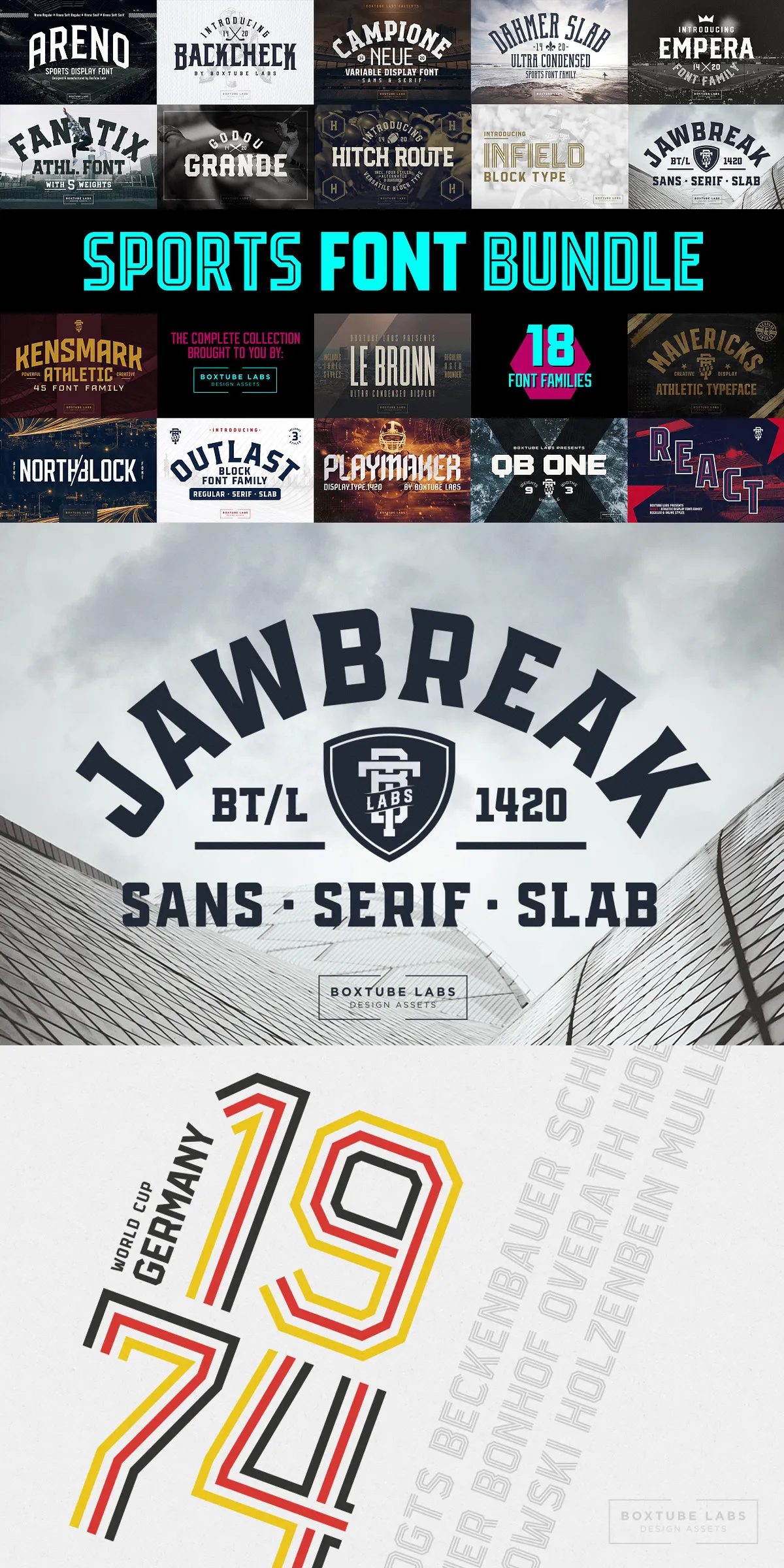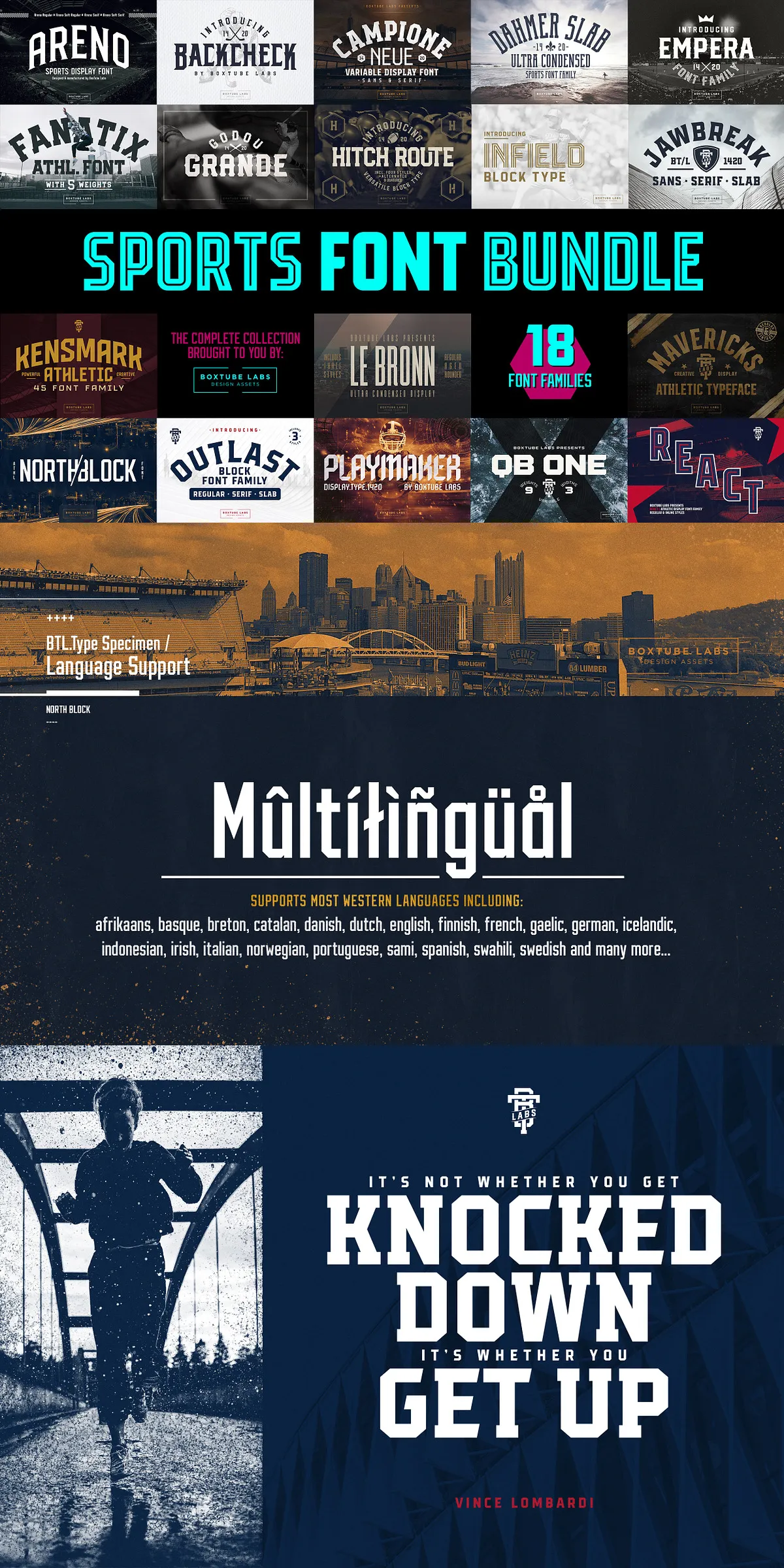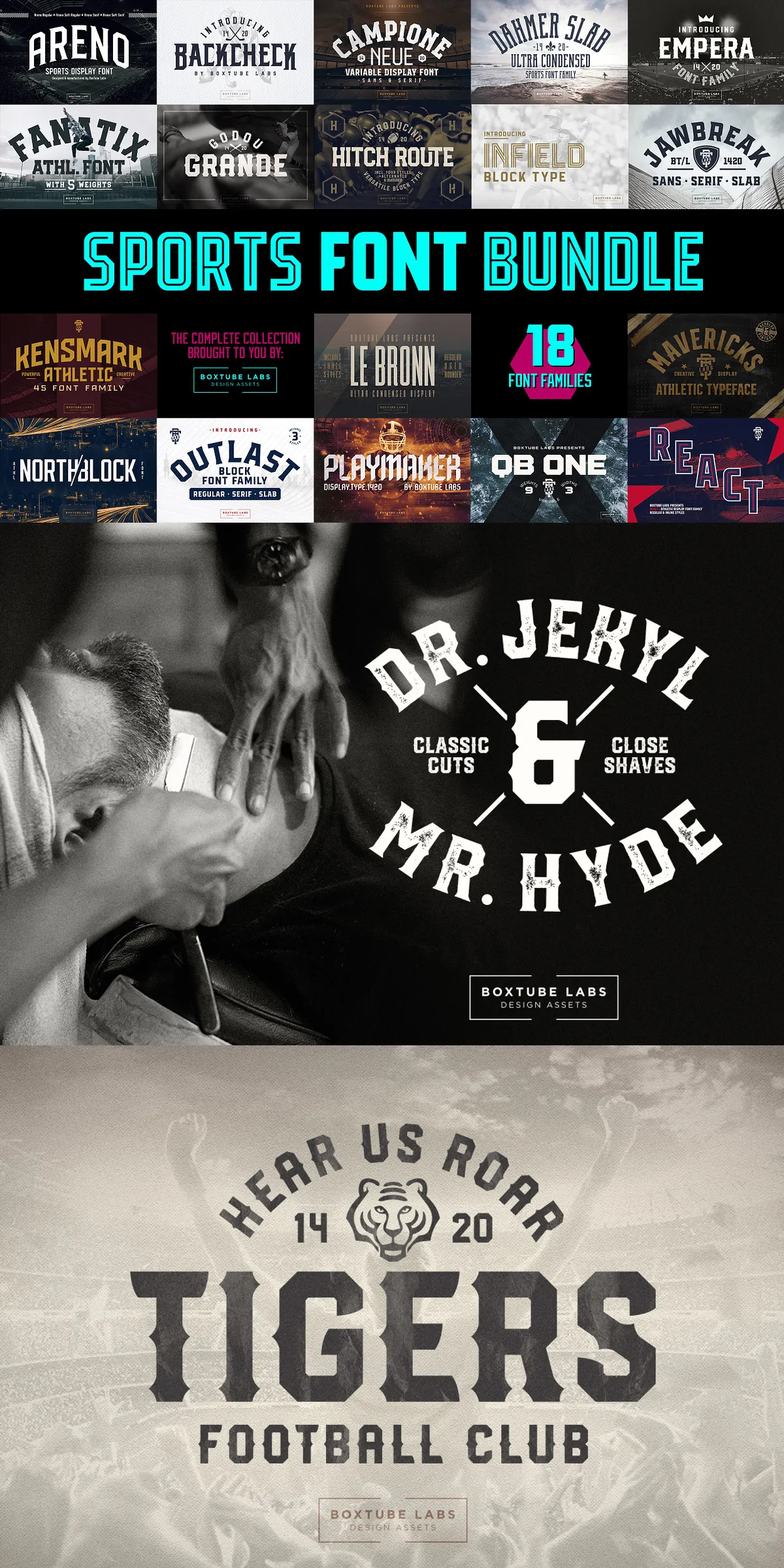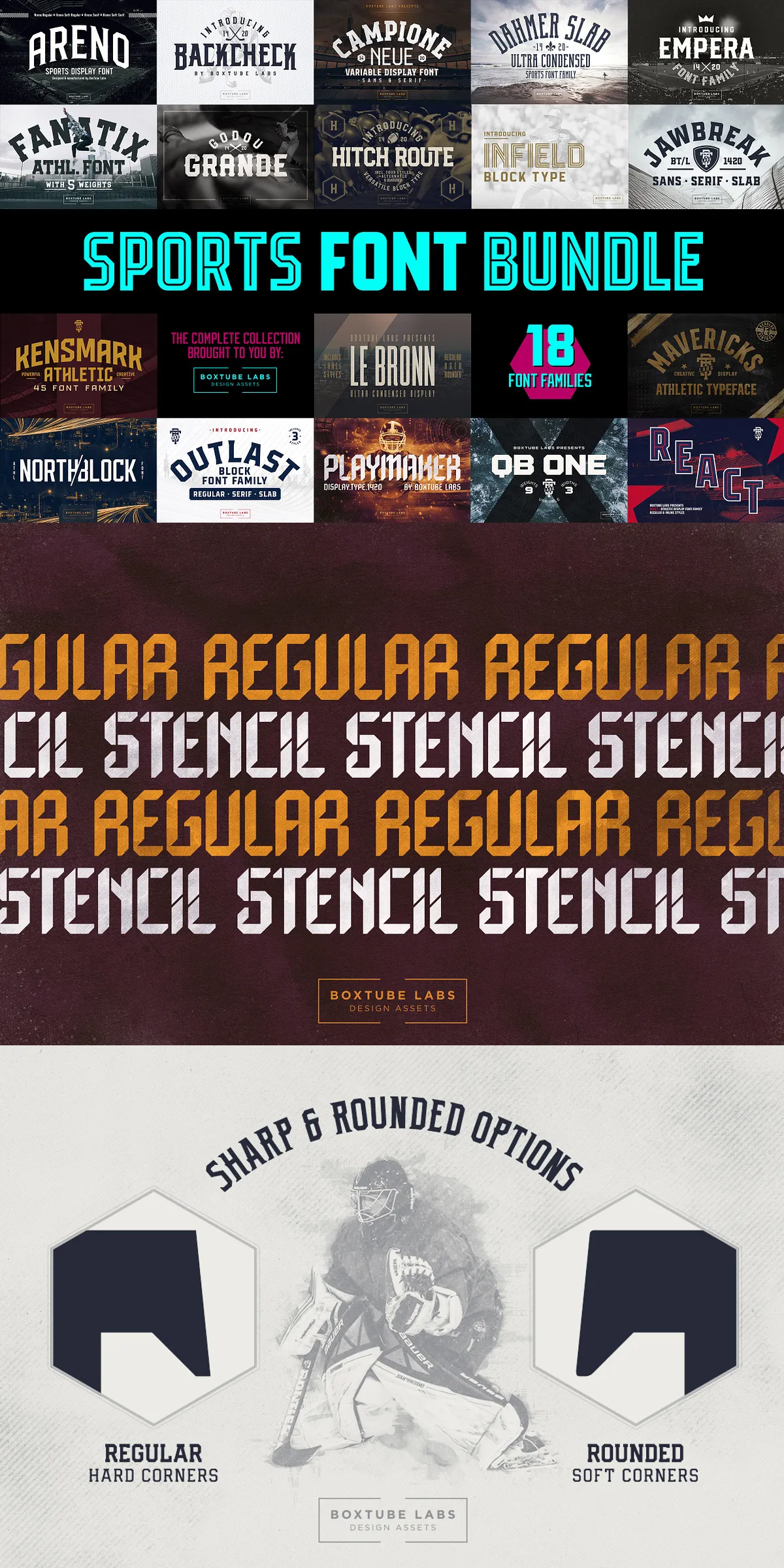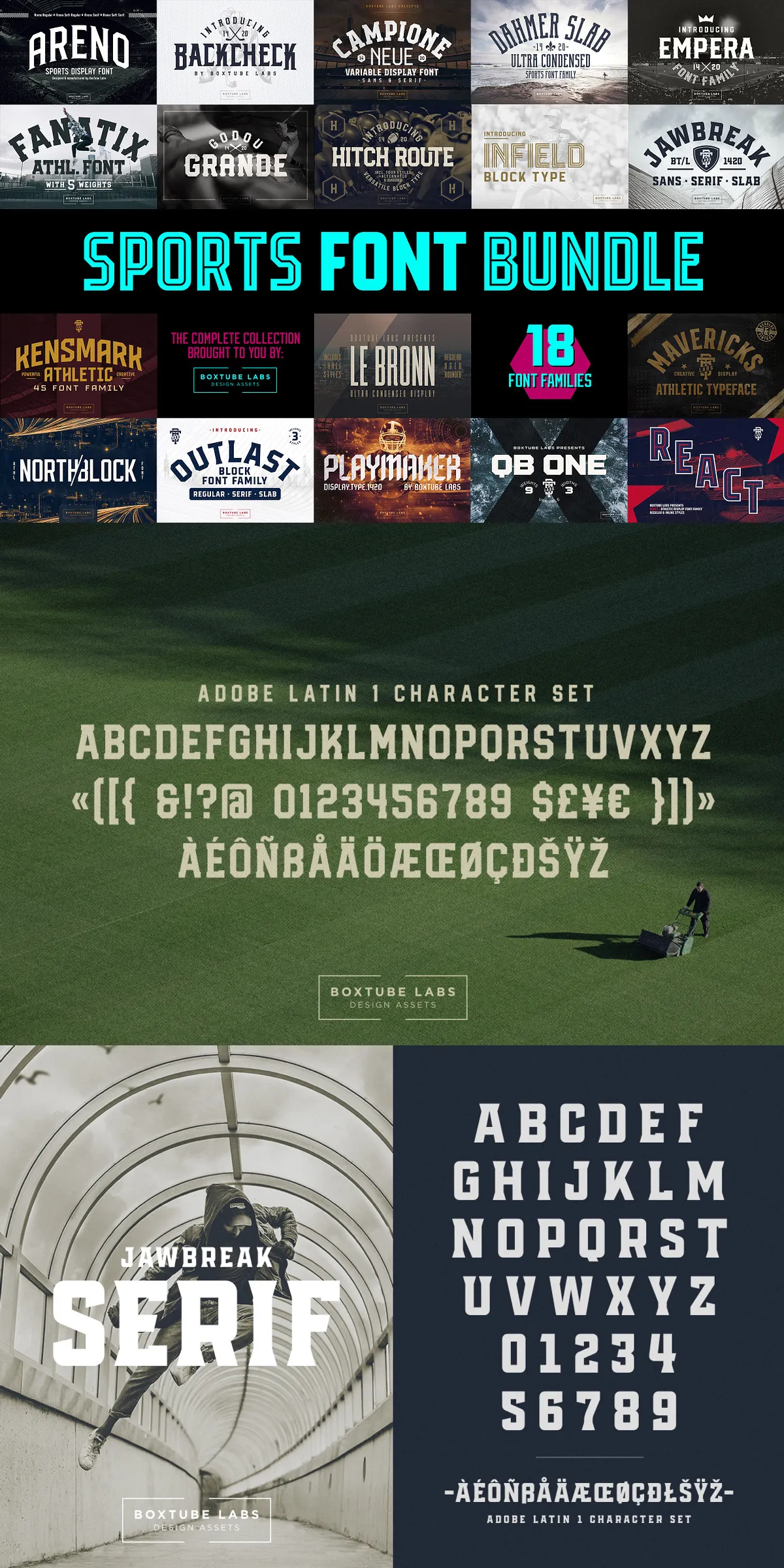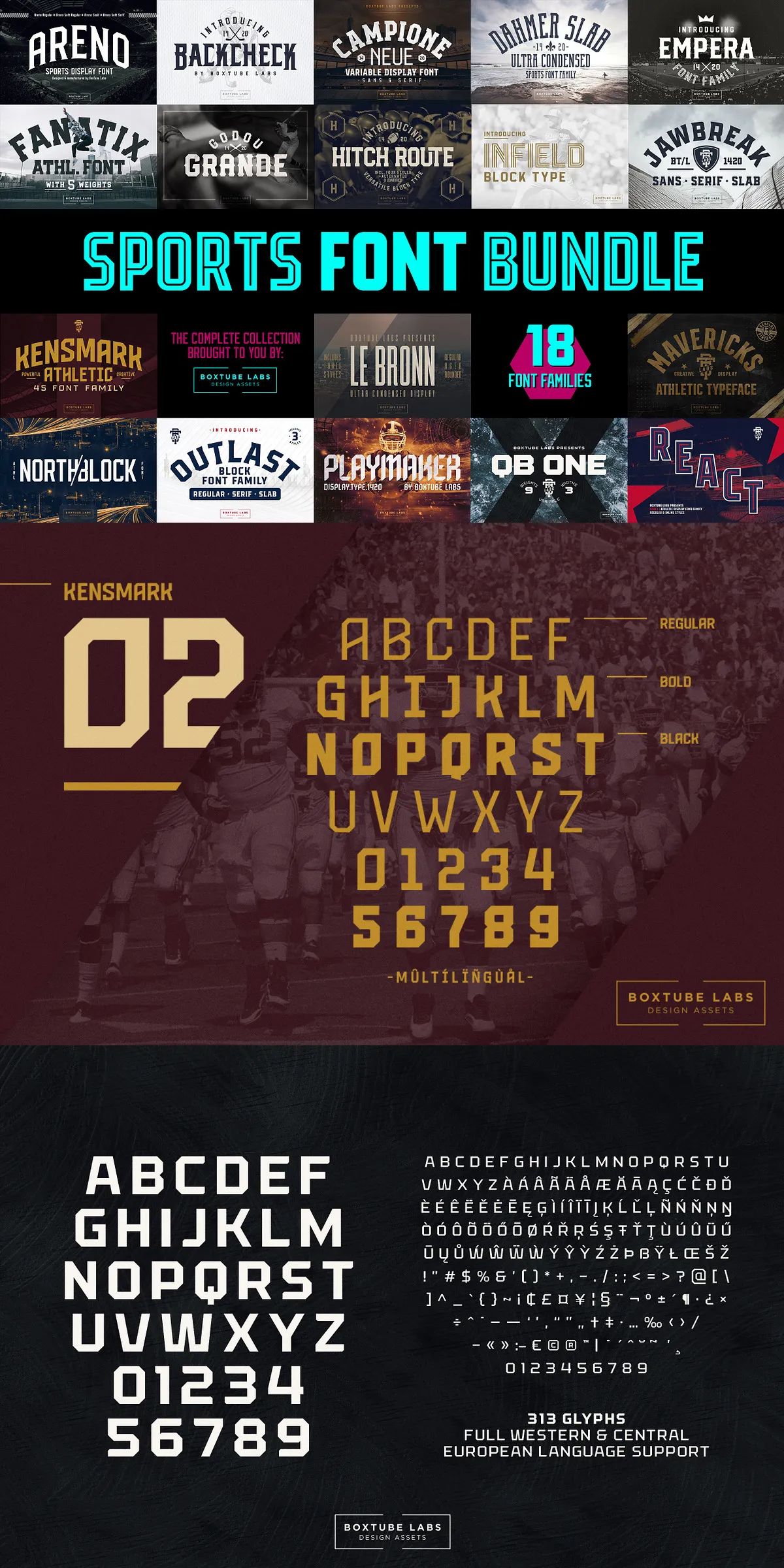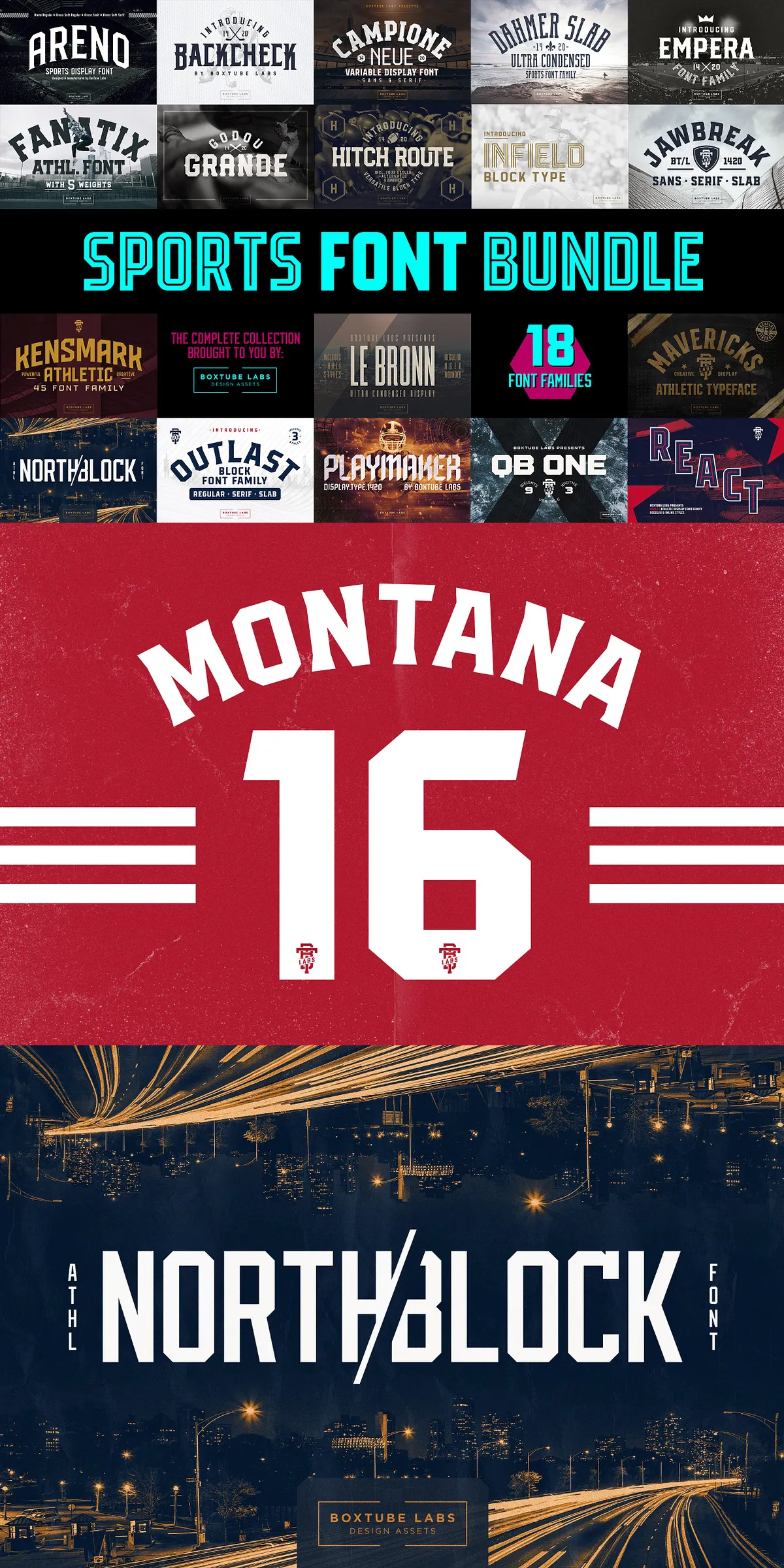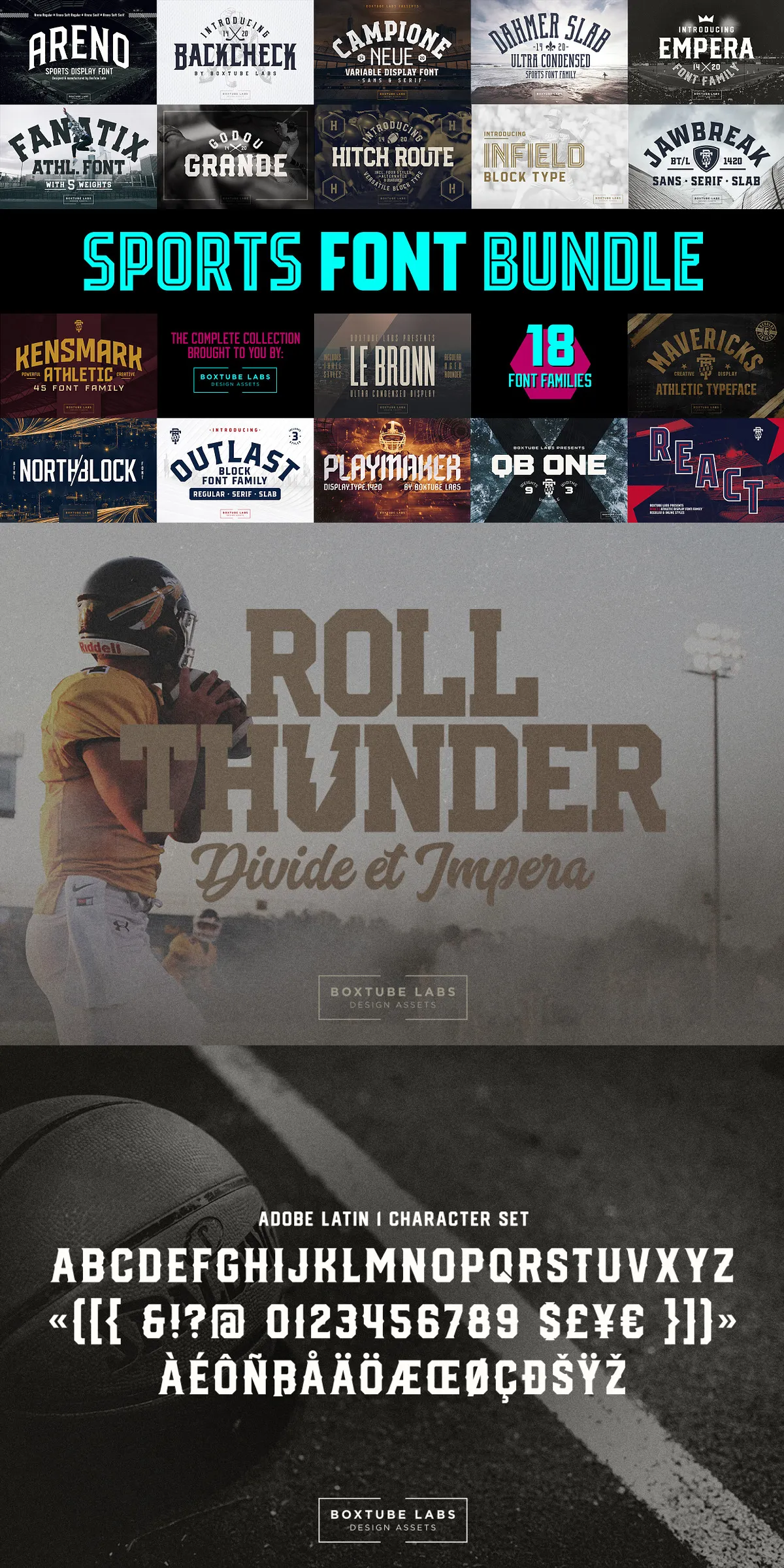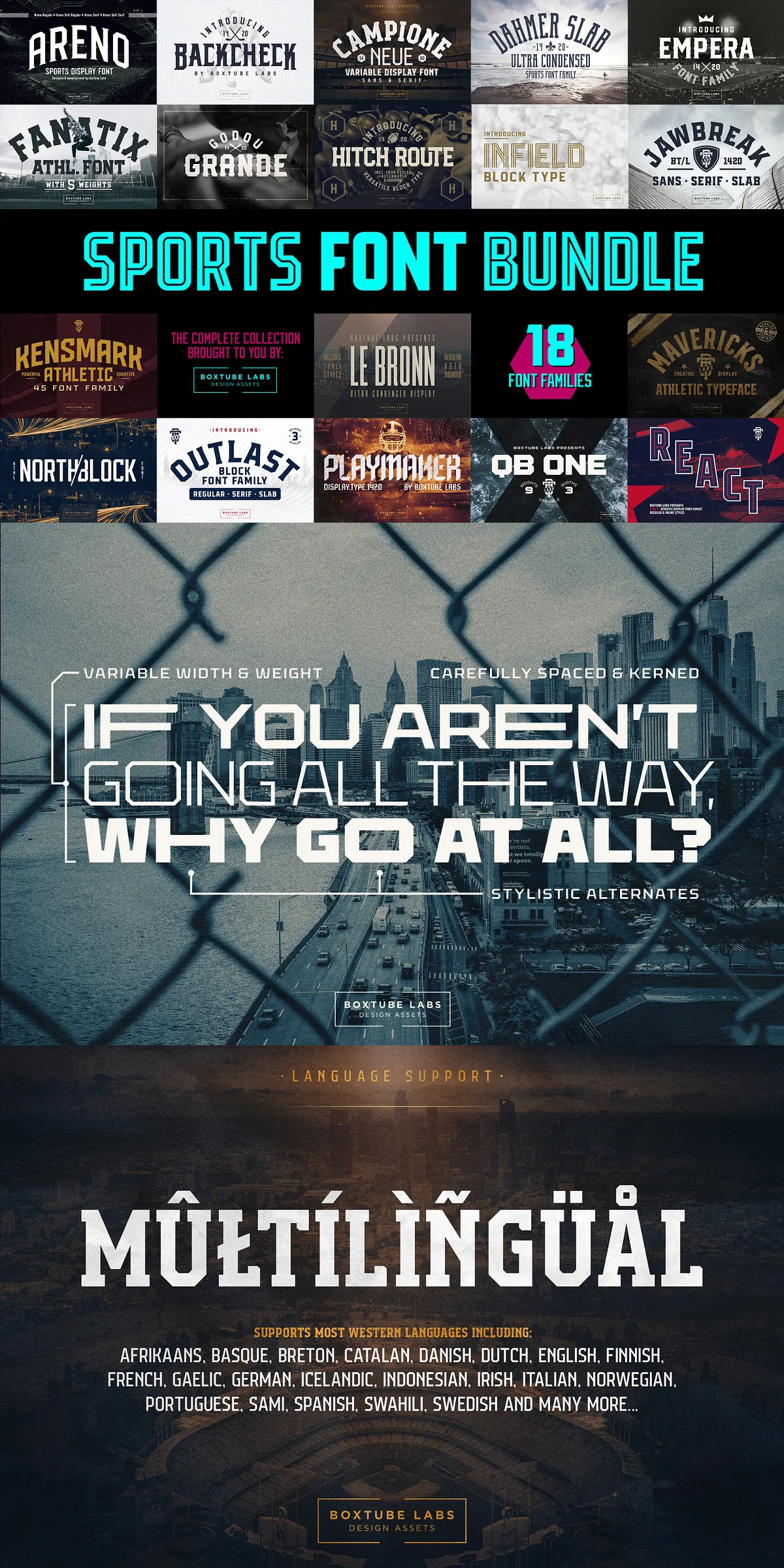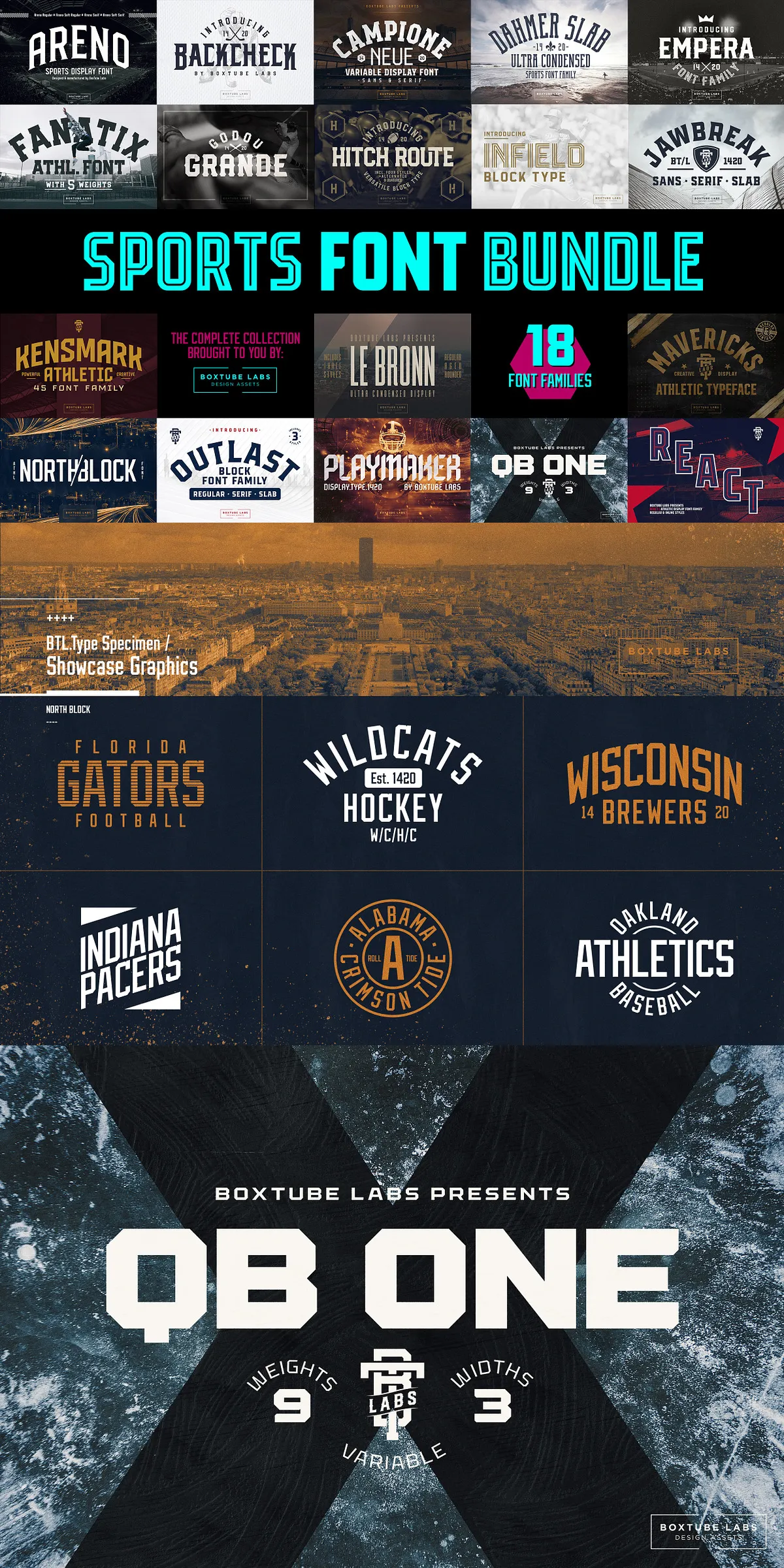
BoxTube Labs presents BTL.ALL, a powerful sports display font bundle crafted to accelerate athletic branding and design production. This complete pack gathers 18 sporty, performance-driven type families with a total of 122 fonts. Each typeface emphasizes bold geometry, confident strokes, and clear letterforms designed to read strongly on logos, team marks, apparel, signage, and promotional materials. The bundle equips designers and creative teams with a comprehensive toolkit to build cohesive visual systems quickly and consistently.
- 18 distinct display type families optimized for athletic and sports-themed design.
- A combined total of 122 font files spanning weights, italics, and display styles.
- Top-selling fonts included in the pack: Jawbreak, Areno, Empera, Kensmark, and Campione Neue, among others.
Practical Use Cases For The Sports Font Bundle
Use BTL.ALL wherever a bold, athletic typographic voice is required. Typical applications include:
- Team logos and wordmarks that need strong presence on uniforms and merchandise.
- Club branding and identity systems that must scale across print and digital channels.
- Apparel design such as t-shirt graphics, numbered jerseys, and caps.
- Event posters, flyers, social ads, and stadium signage requiring headline impact.
- Product packaging, label design, and promotional collateral for sports-related goods.
Design Recommendations And Pairing Tips
For optimal results, use the display families for primary headlines and logotypes. Pair with neutral sans or readable serif faces for supporting body copy to maintain hierarchy and legibility. Leverage condensed variations for tight lockups on merchandise and wide styles for large-format signage. Apply texture overlays subtly to simulate print wear or to give a handcrafted feel that suits retro or collegiate projects.